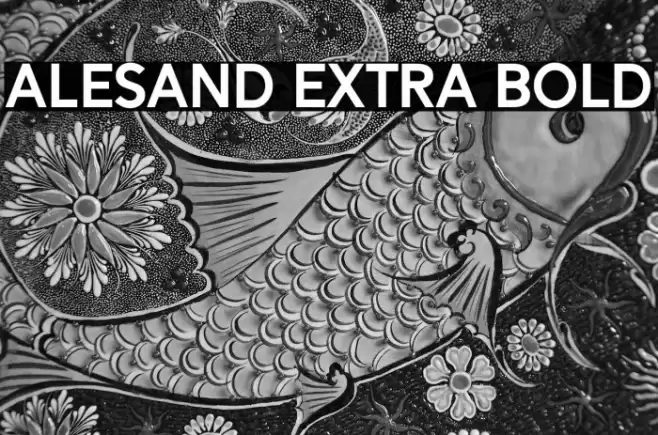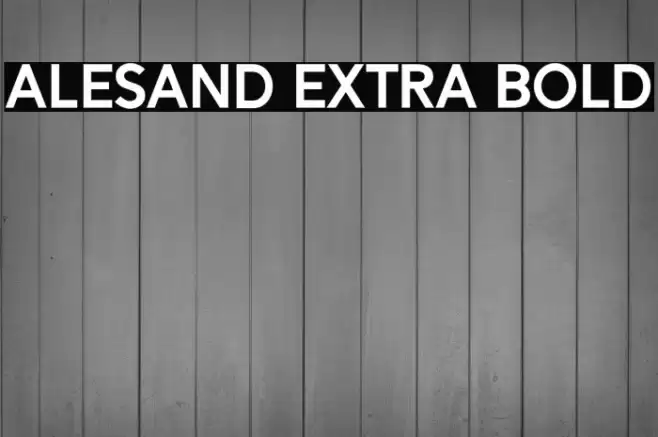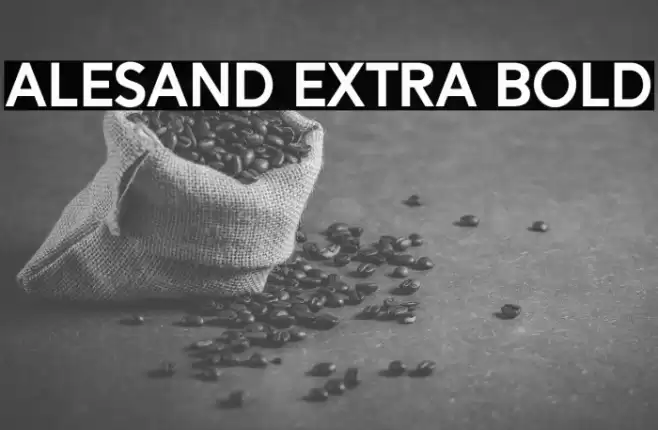
Alesand Extra Bold Font
Alesand Extra Bold Description
This font features a bold and assertive style, characterized by its thick strokes and strong presence. The uppercase letters are uniform and geometric, providing a modern and clean appearance. The lowercase letters maintain the same boldness, ensuring consistency across all text. The numerals are clear and easily distinguishable, making them suitable for various applications. Special characters are well-defined, adding to the font's versatility. Overall, this font exudes confidence and clarity, making it ideal for impactful headlines and branding.
A bold, modern font with strong geometric shapes and clear readability from Regular fonts.
- Proposed Projects: Ideal for branding, advertising, headlines, and any project requiring a strong visual impact.
- Use Case: Headlines, Logos, Branding